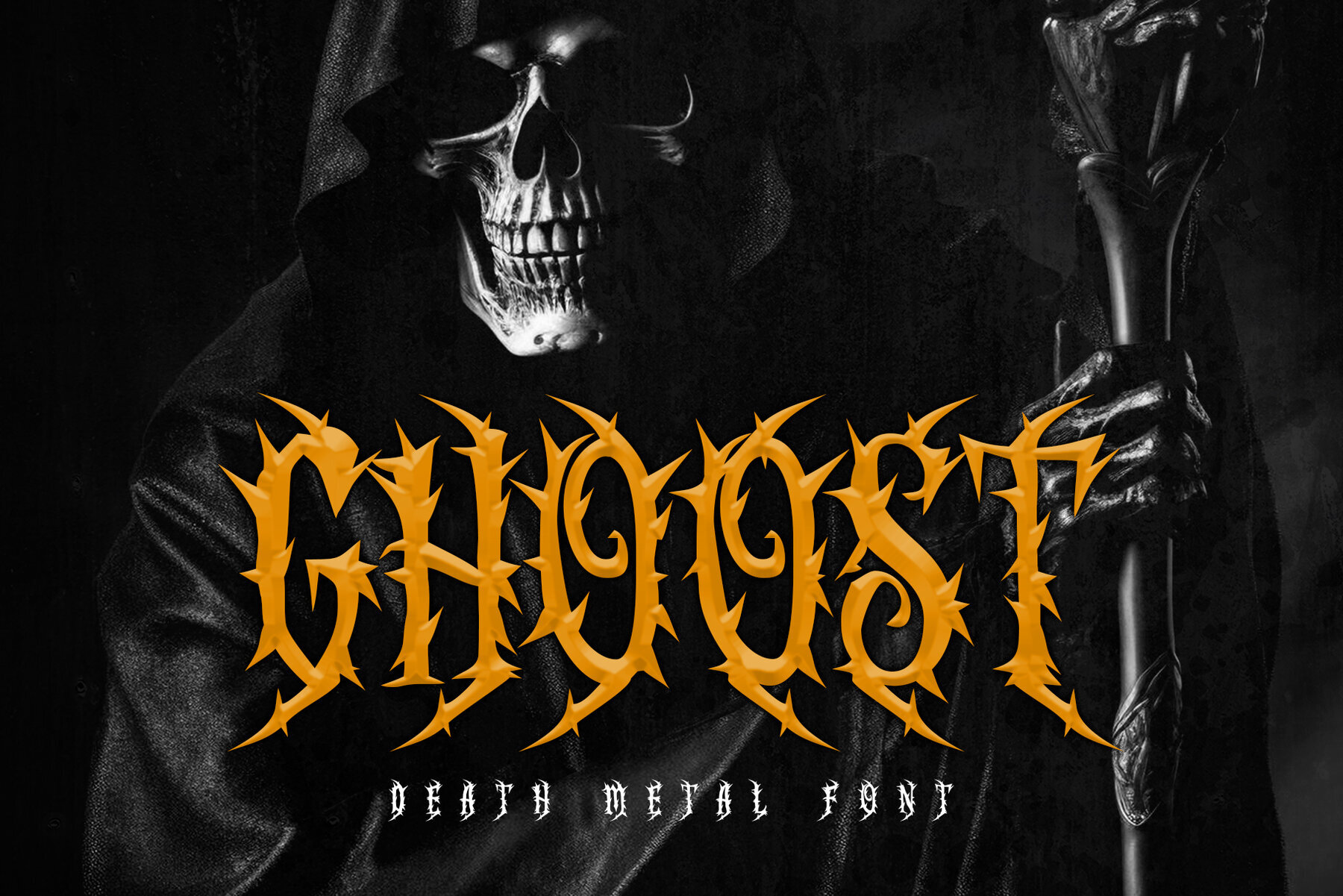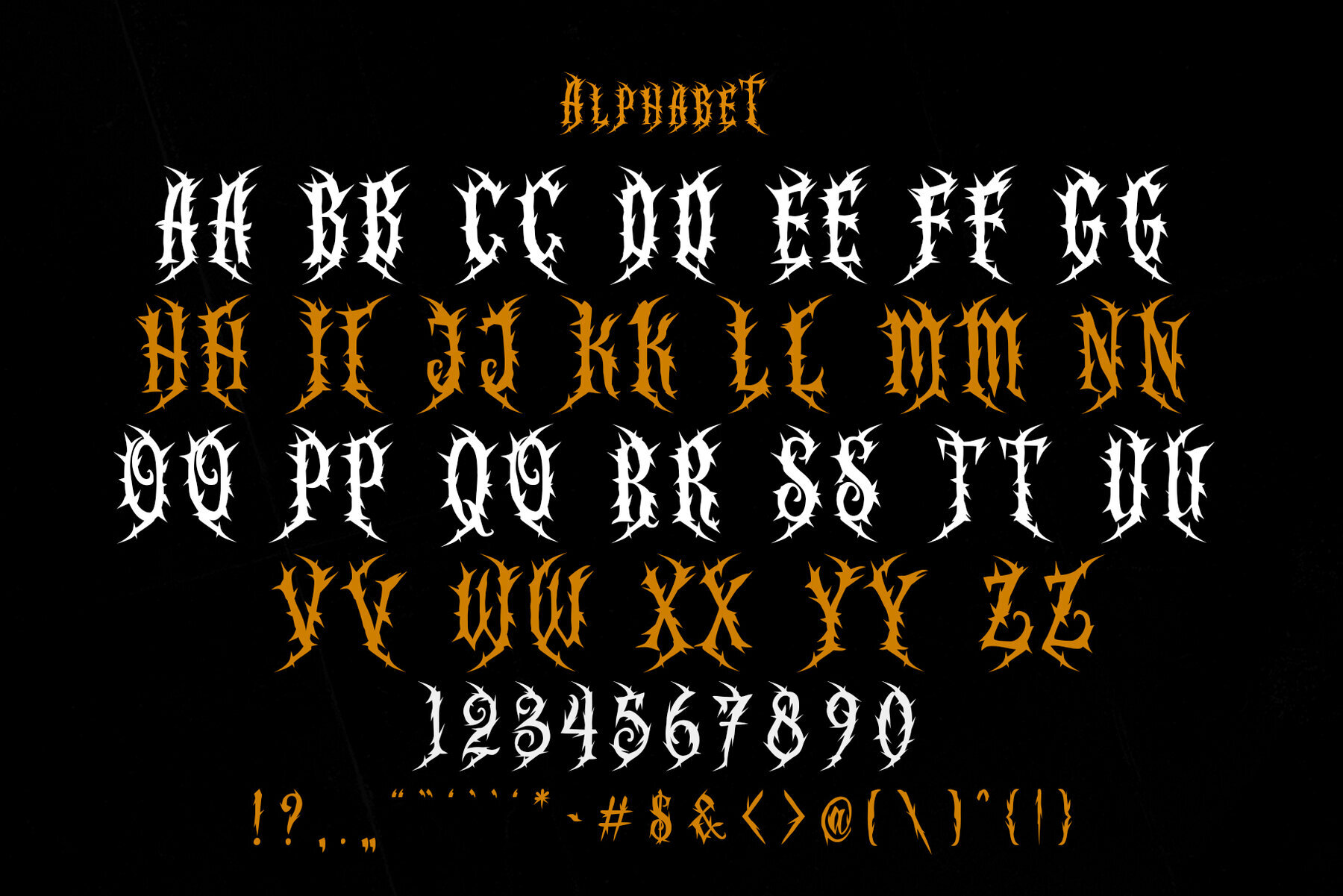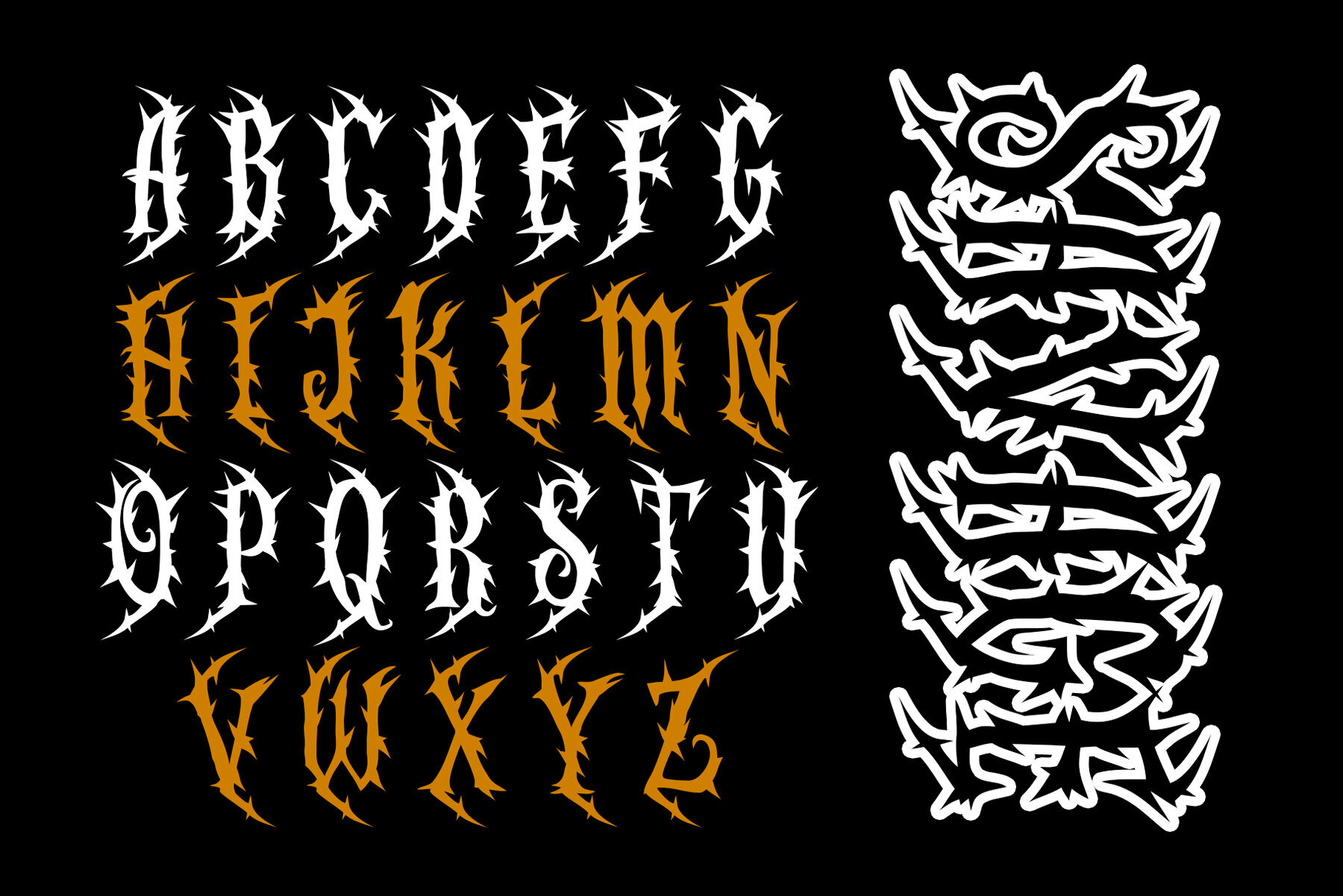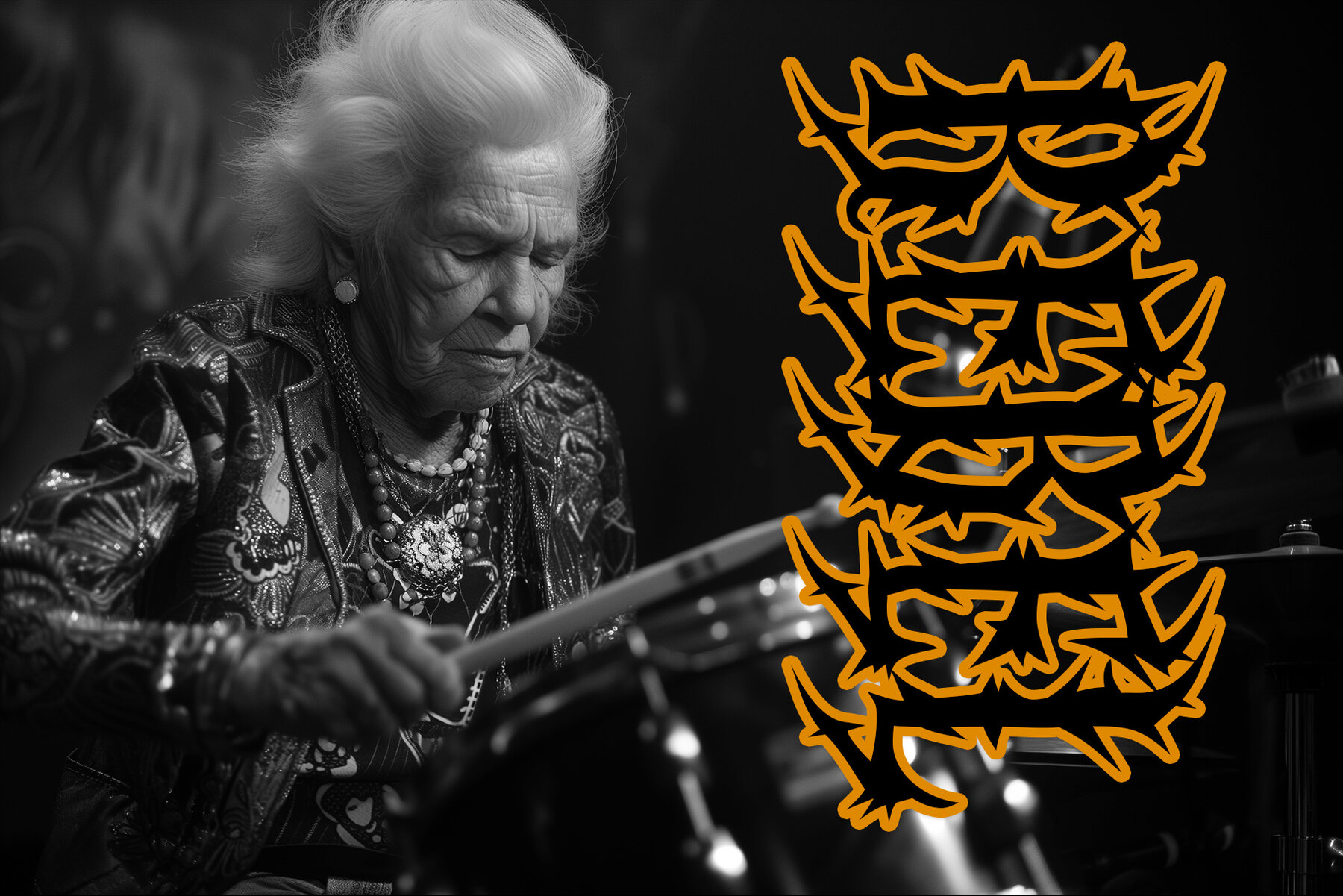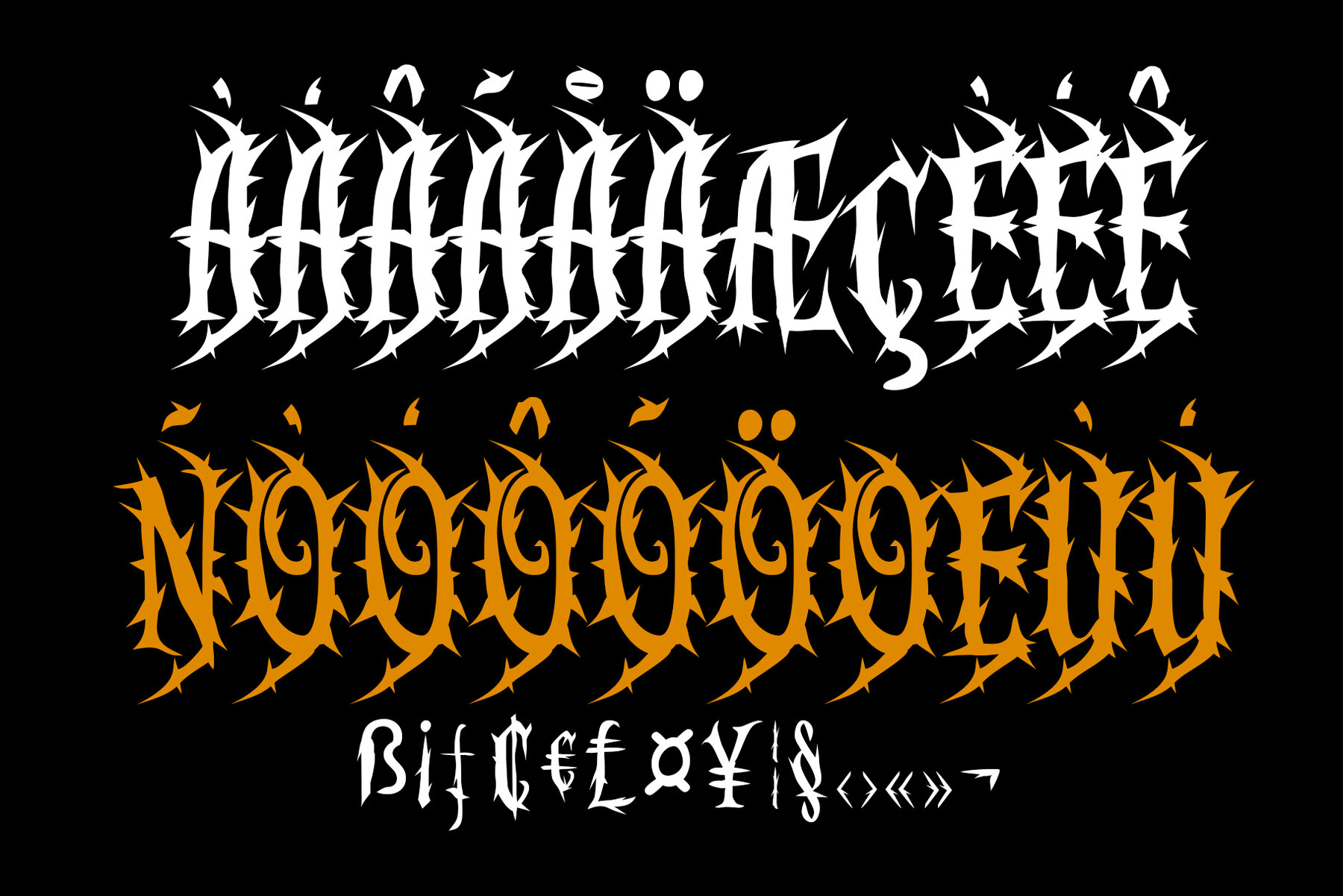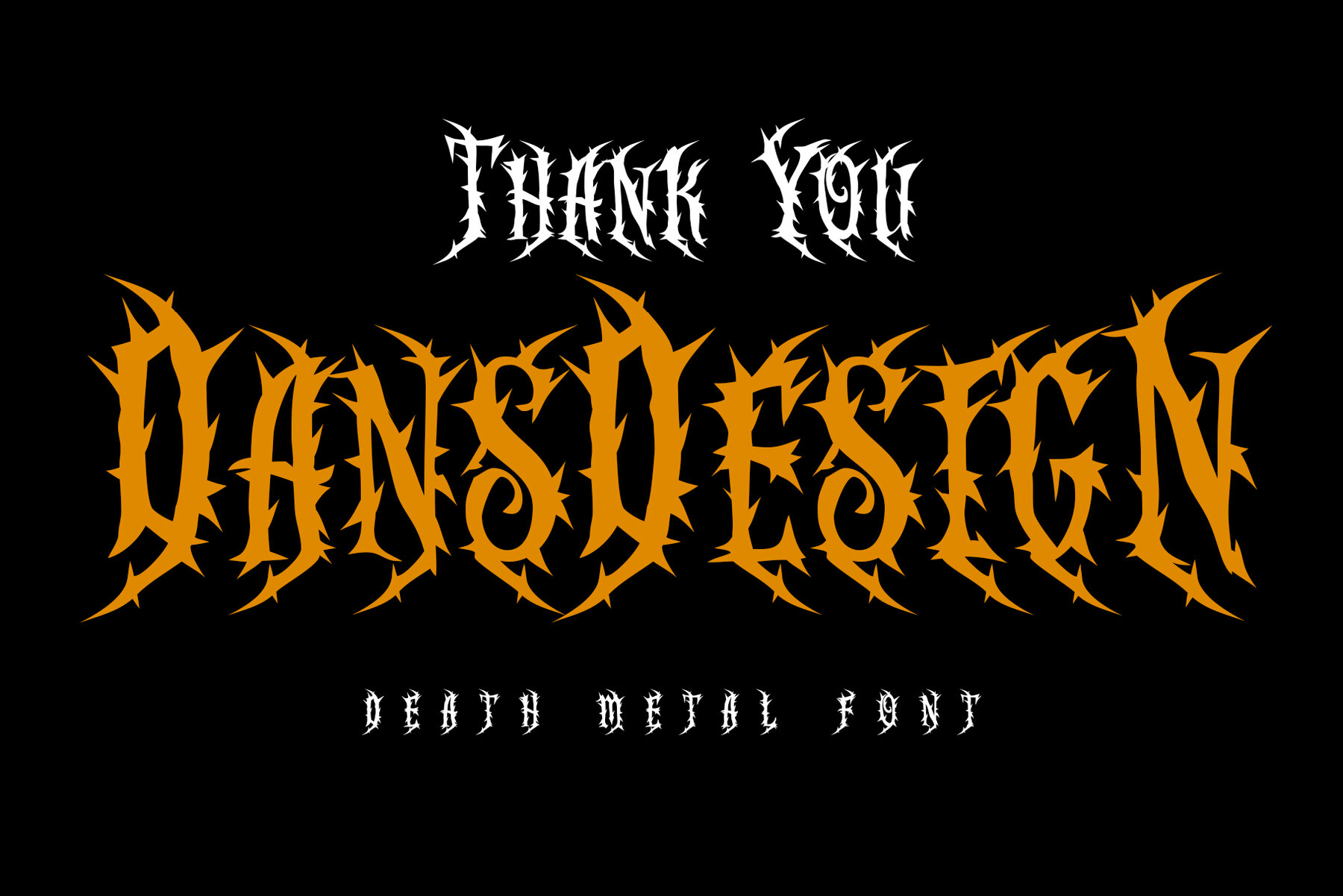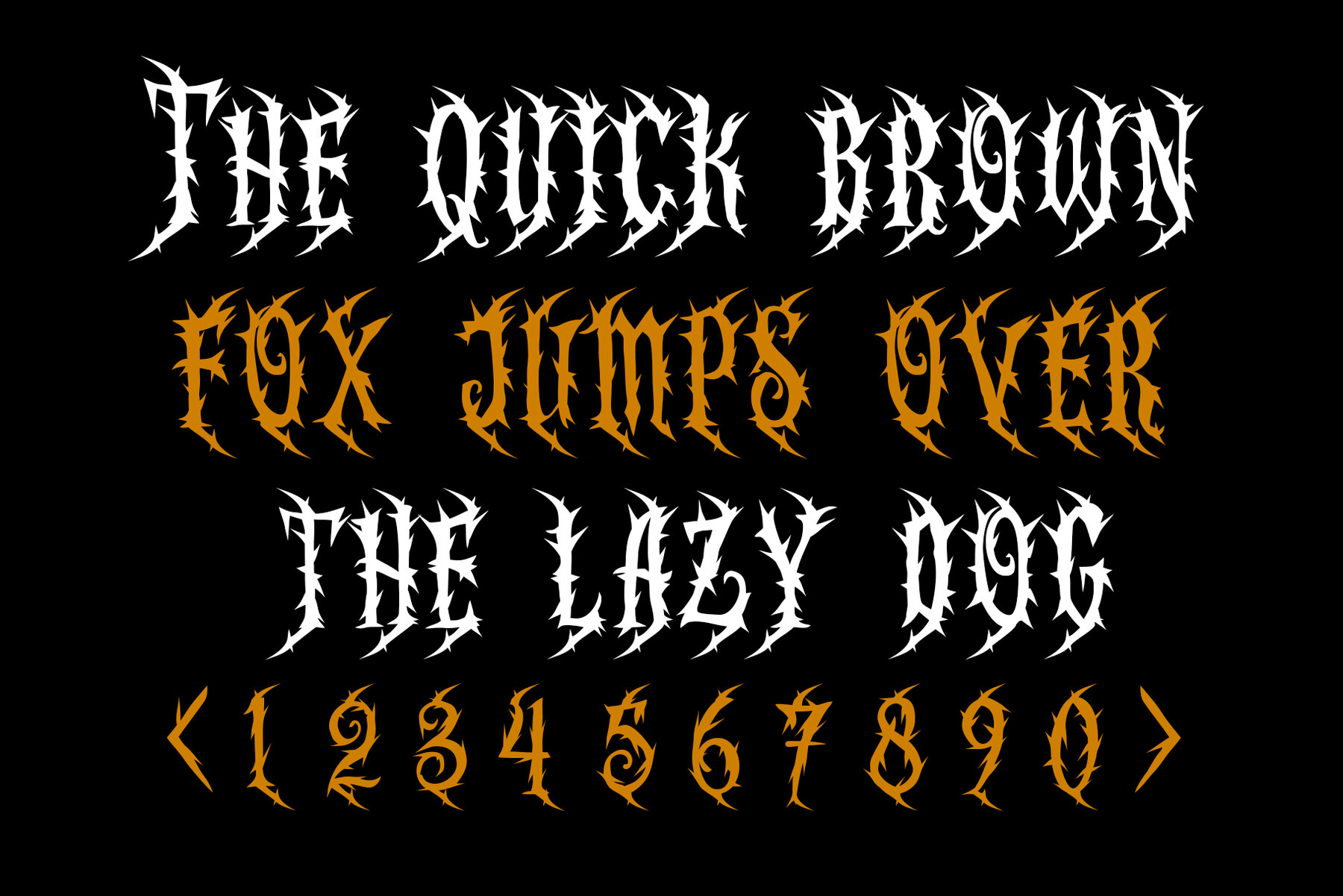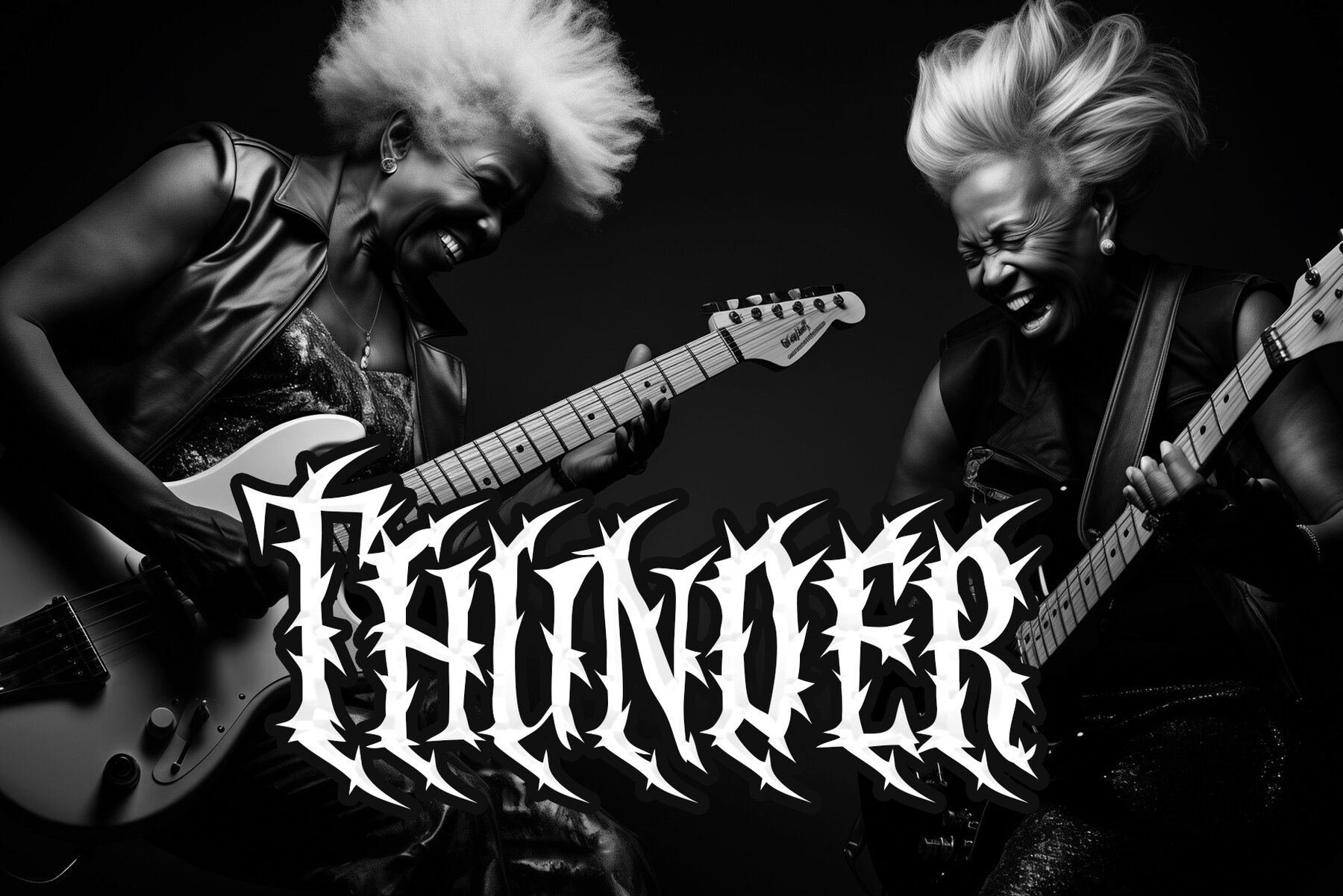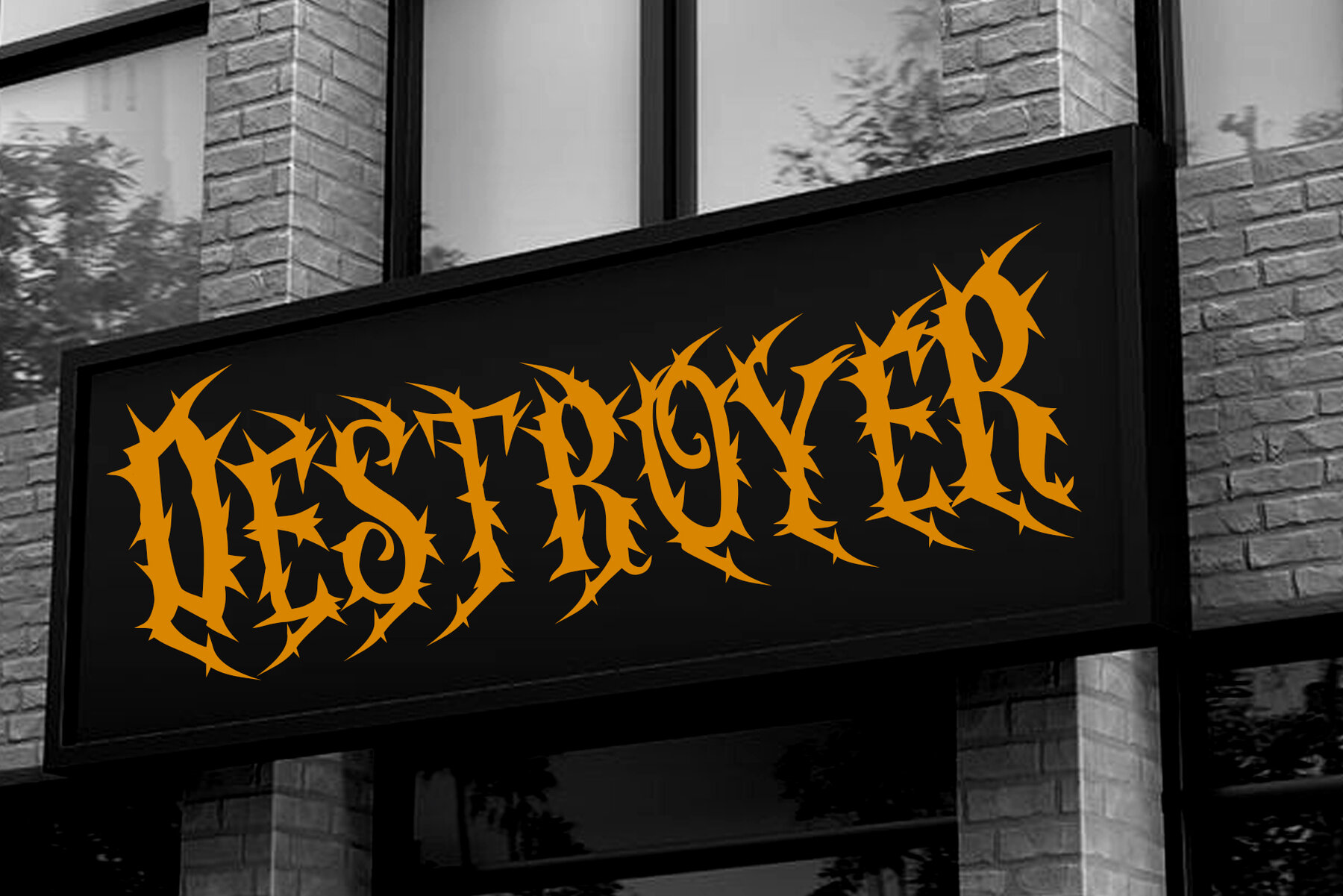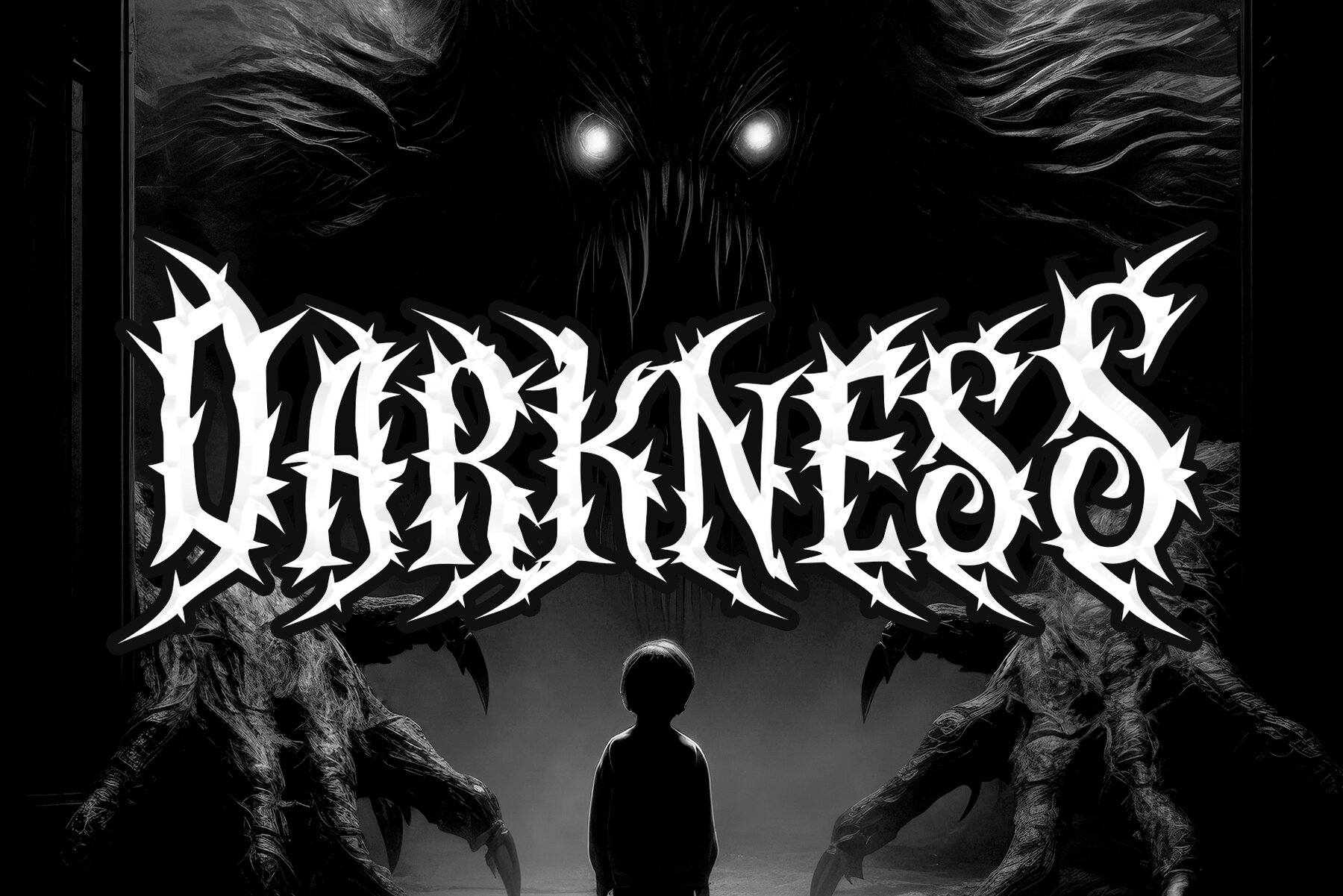
GHOOST Font
GHOOST Regular
Infuse your design projects with the fierce and electrifying aura of GHOOST, a bold typeface from Dandesign Studio that embodies the essence of blackletter horror and heavy metal. With its sharp strokes, aggressive curves, and haunting details, this font delivers a powerful dramatic punch, making it a perfect choice for metal band logos, horror movie posters, album covers, and Halloween designs. GHOOST is equally at home in tattoo art, streetwear branding, and dark-themed merchandise, offering a truly fearsome aesthetic. Its distinctive balance of intensity and legibility ensures versatility across both print and digital formats. Whether you're conjuring a spine-chilling atmosphere or highlighting raw energy, this font captivates and sets the ideal mood. GHOOST is designed to grab attention instantly, ensuring your projects stand out with its striking presence.GHOOST - Horror Metal Font